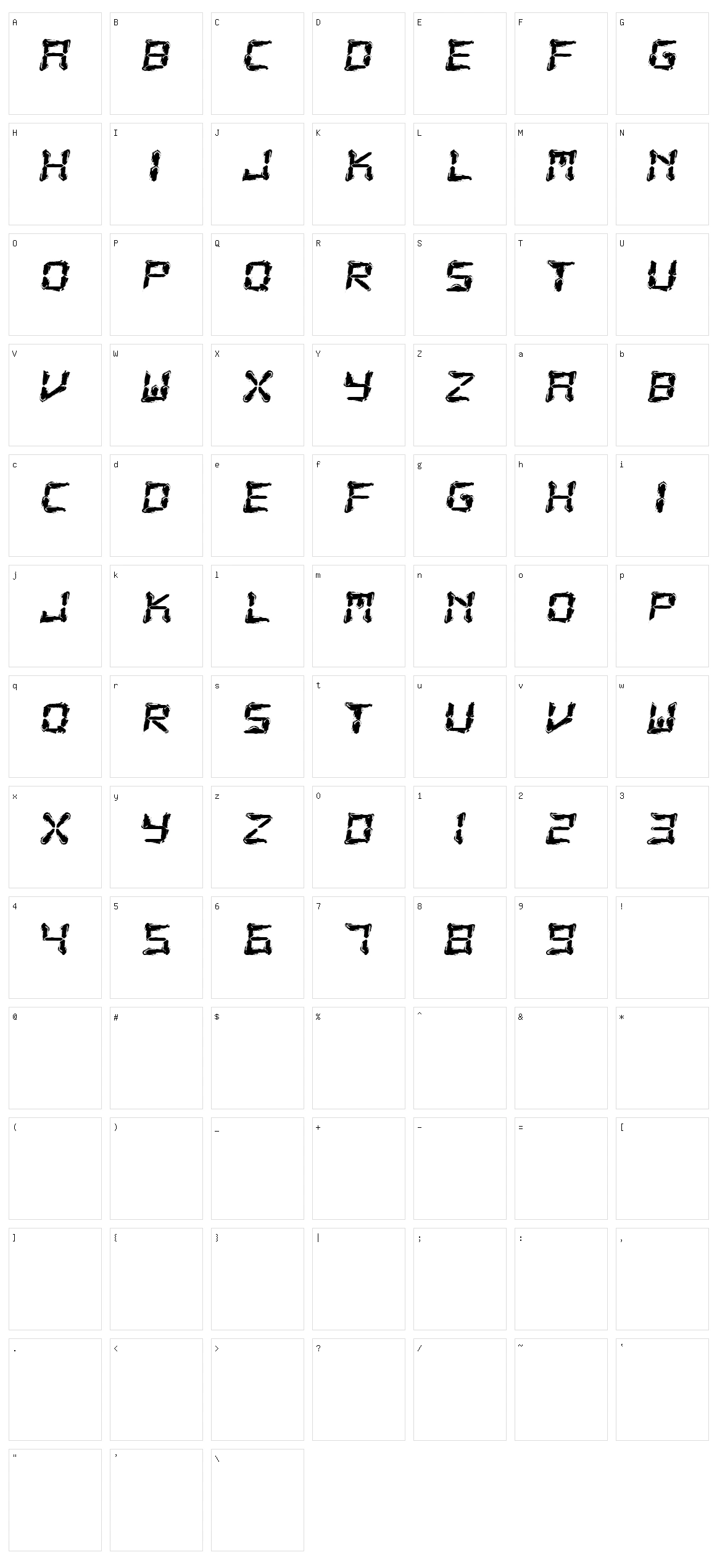
The free font Fluid LCD is carefully designed by Qkila, showcasing a thoughtful balance of creativity and usability and falls under the Eroded font style. When you download the ZIP file, it contains only 183.32 KB of font files, making it lightweight and quick to download. Please review the license details below to understand permitted usage and distribution rights. If license information is not available, we recommend using this font for personal projects only or contacting the author directly for commercial usage permissions.